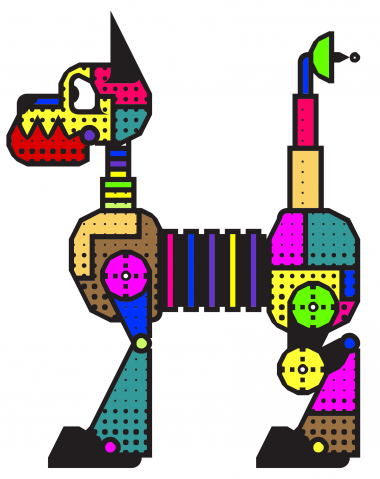
• This one was a long time in the works. If you liked Knutz and Boltz you'll really dig this one. Probably no numbers or extra characters to come I'm afraid. The caps were a ton of work alone. Enjoy.
Just AMAZING! You never cease to amaze me. This is much, much better than I could ever do. It's a joy just to scroll through the alphabet.
We would swear these are "real" tin toys!Impressive. Though the impossible balance make it not so suited for text. Perfect as decorative Drop Caps. Definitely your most beautiful glyphs to date. One word on it is : ART !
Brilliant!! So intricate; so much fun; so legible. 10/10+
It reminds me to Machinarium. Awesome. 10/10
The detail in this is amazing, excellent! 10/10
Best. Font. EVER!! I love this so much! Very creative. Looks beautiful, but I can't imagine how long it took to create all of those characters! So intricate and awesome. :)
Oh My god... You know what these remind me of.. Megaman enemies... But really Better!
Super Funky Robots Glitch ;D
Awesome work! I love how each letter has a character of its own. I couldn't do something like this.
This is awesome! I can tell you took a very long time to do this. These are NOT real bricks! By the POWER of ROBOT ART!! :DDDDDDDD
Holy sh*t... I might as well pack my bag and leave.. Structwise this is crazy good. 10/10
P and R are twins